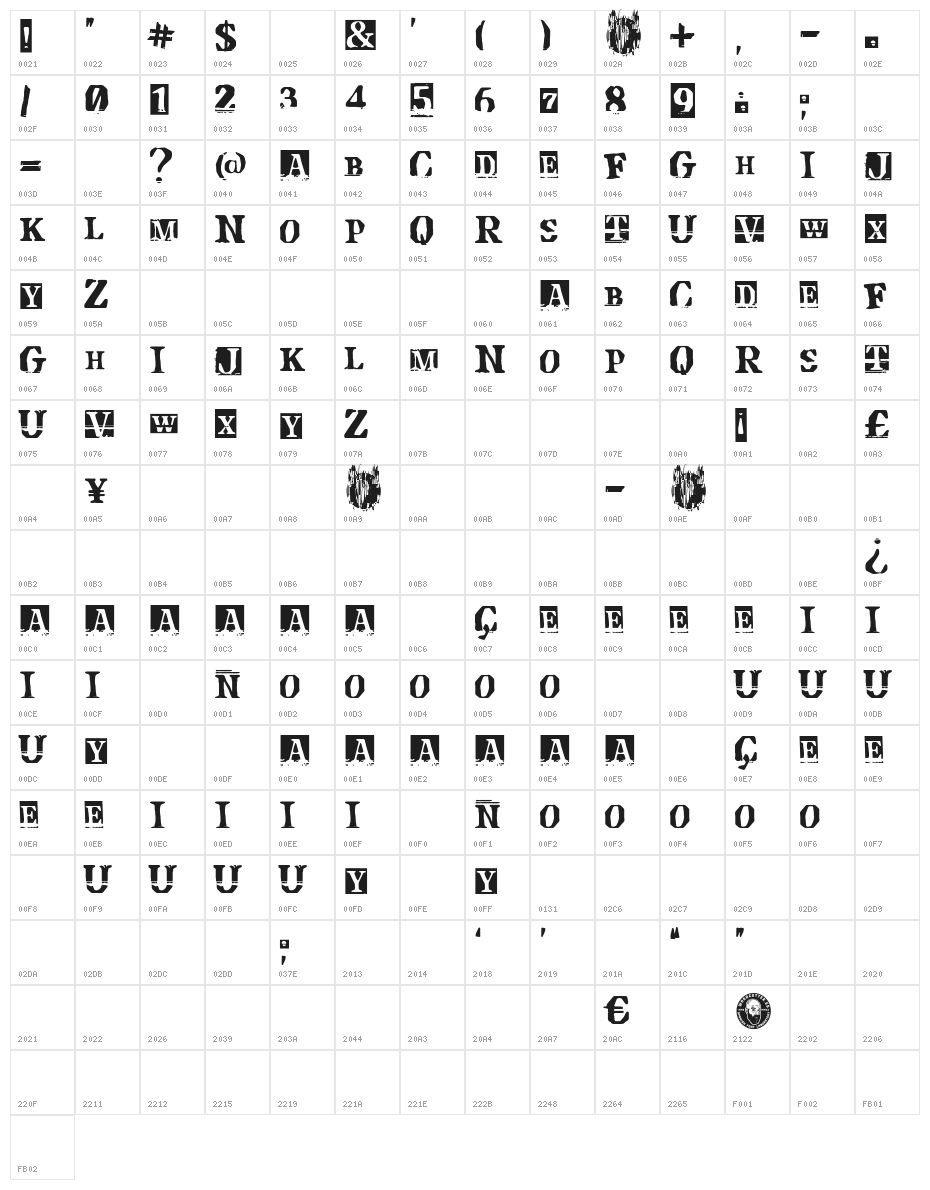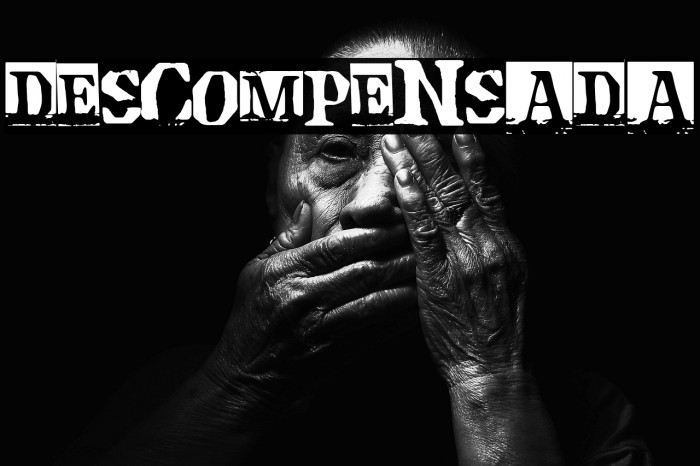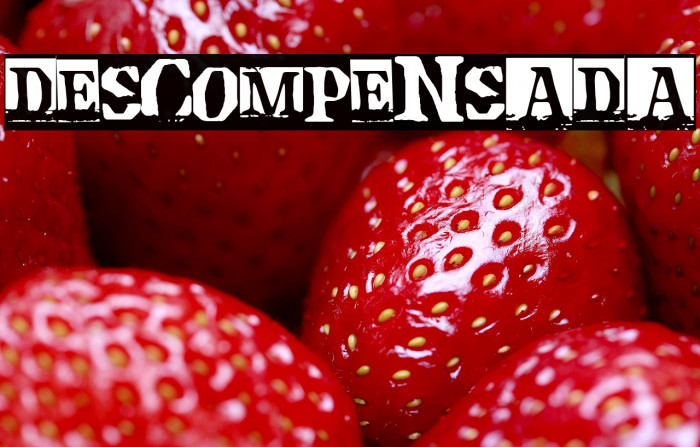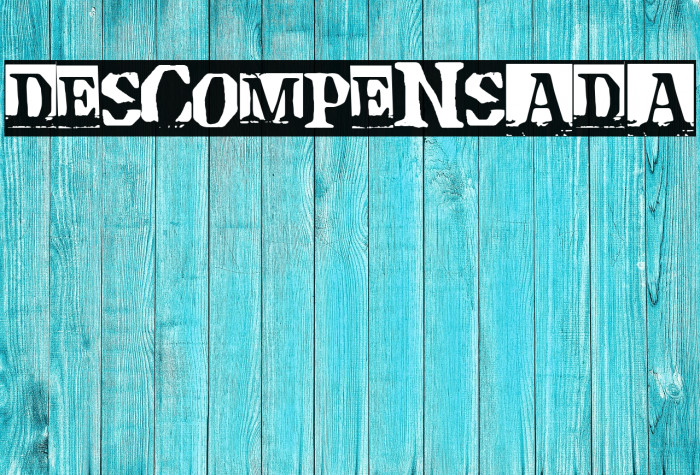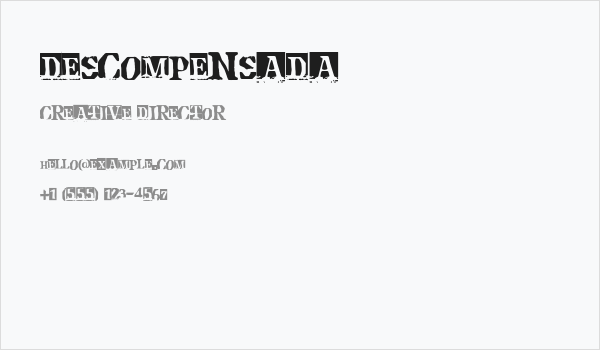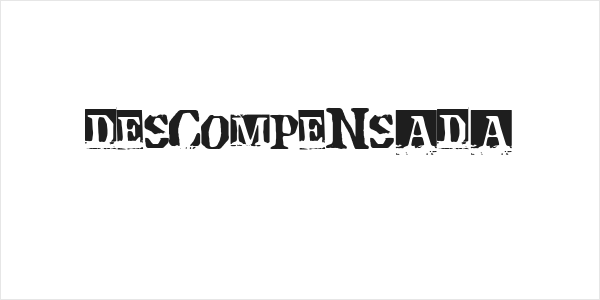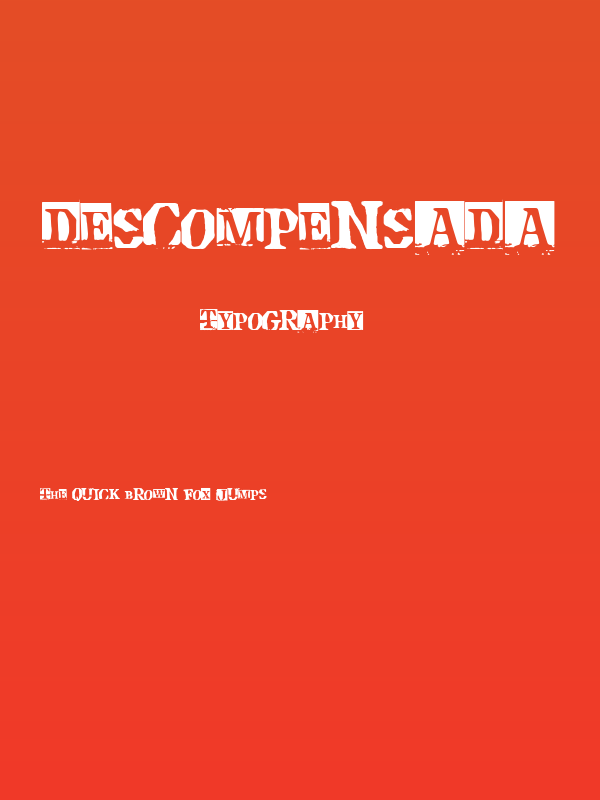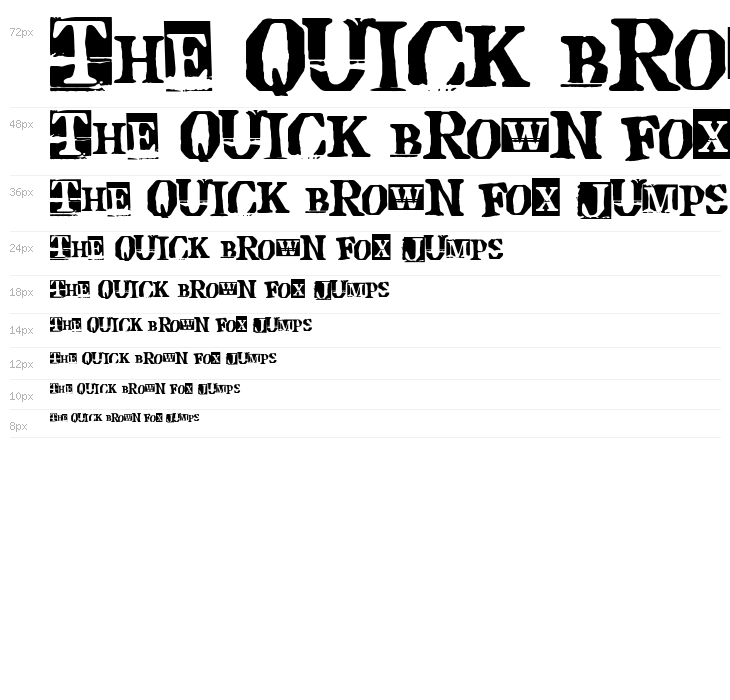
Descompensada Font
This font features a distressed, grunge style with a stencil-like appearance. Each character appears as if it has been cut out or stamped, with rough edges and varying levels of ink coverage, giving it a rugged and rebellious look. The uppercase and lowercase letters maintain a consistent style, with bold, blocky shapes that are slightly irregular, adding to the chaotic aesthetic. Numbers and special characters follow the same design principles, ensuring a cohesive look across all elements. This font is ideal for projects that require a bold statement or an edgy, urban feel.
Overall StyleGrunge, Urban, Edgy
Proposed ProjectsAlbum covers, streetwear branding, posters, and urban-themed designs.